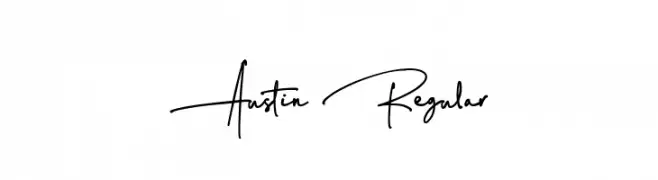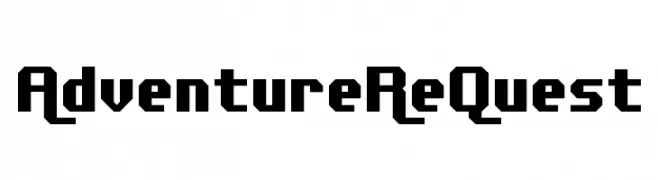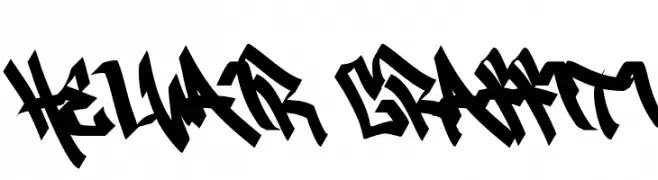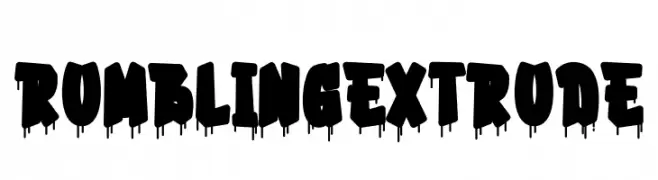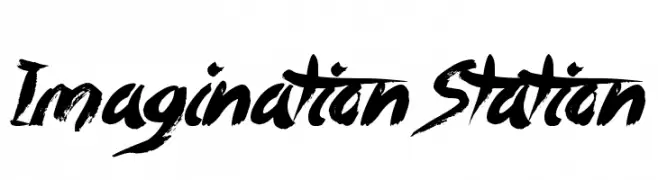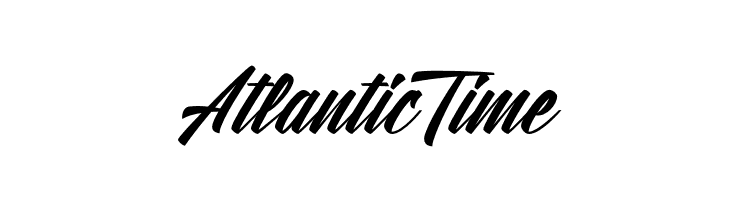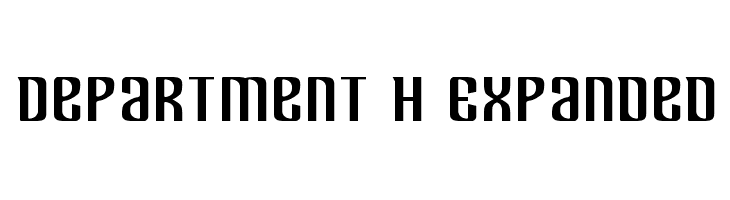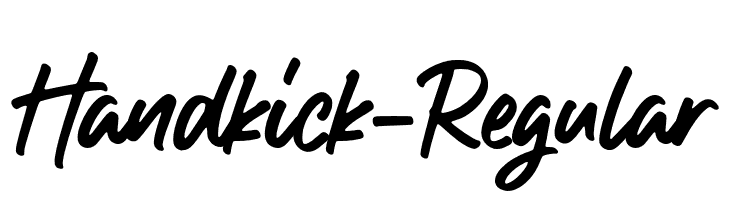
A bold, monospaced font with a retro, pixelated style ideal for digital displays.
A fluid, handwritten font with a casual and personal touch.
A bold, geometric font with a blocky, digital style.
A bold, graffiti-style font with dynamic, angular strokes and an urban aesthetic.
A dramatic, dripping font with a horror-themed aesthetic.
A bold, dripping font with a graffiti-like, extruded style.
A playful, hand-drawn font with a casual and informal style.
A dynamic and elegant script font with fluid, cursive letterforms and dramatic flourishes.
Cartoonish dingbat font themed around New York City scenes and characters.